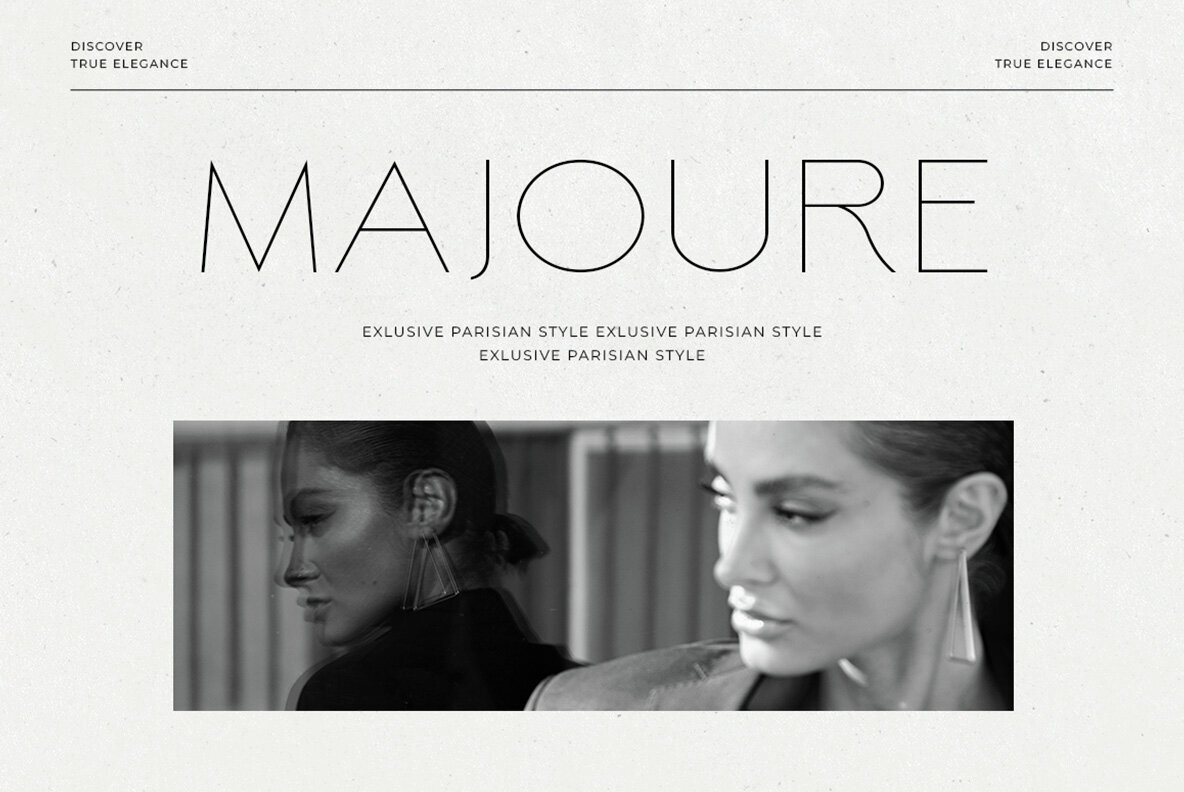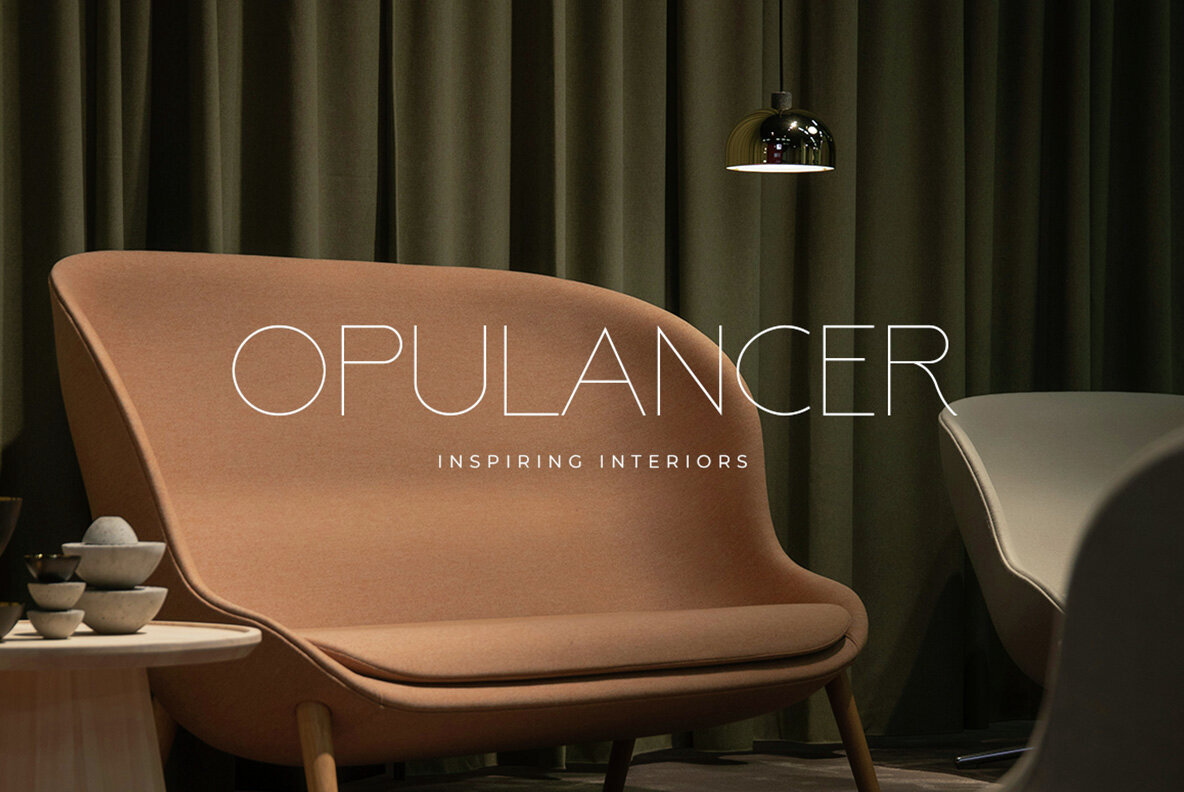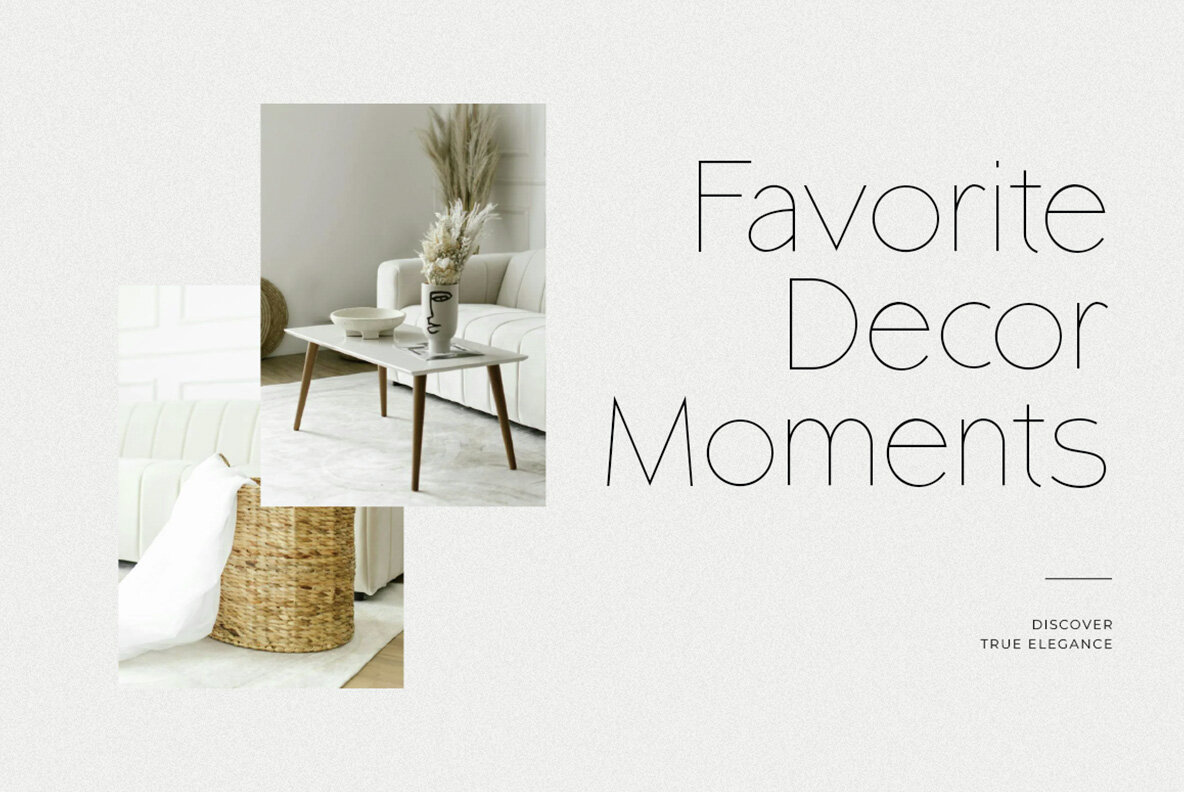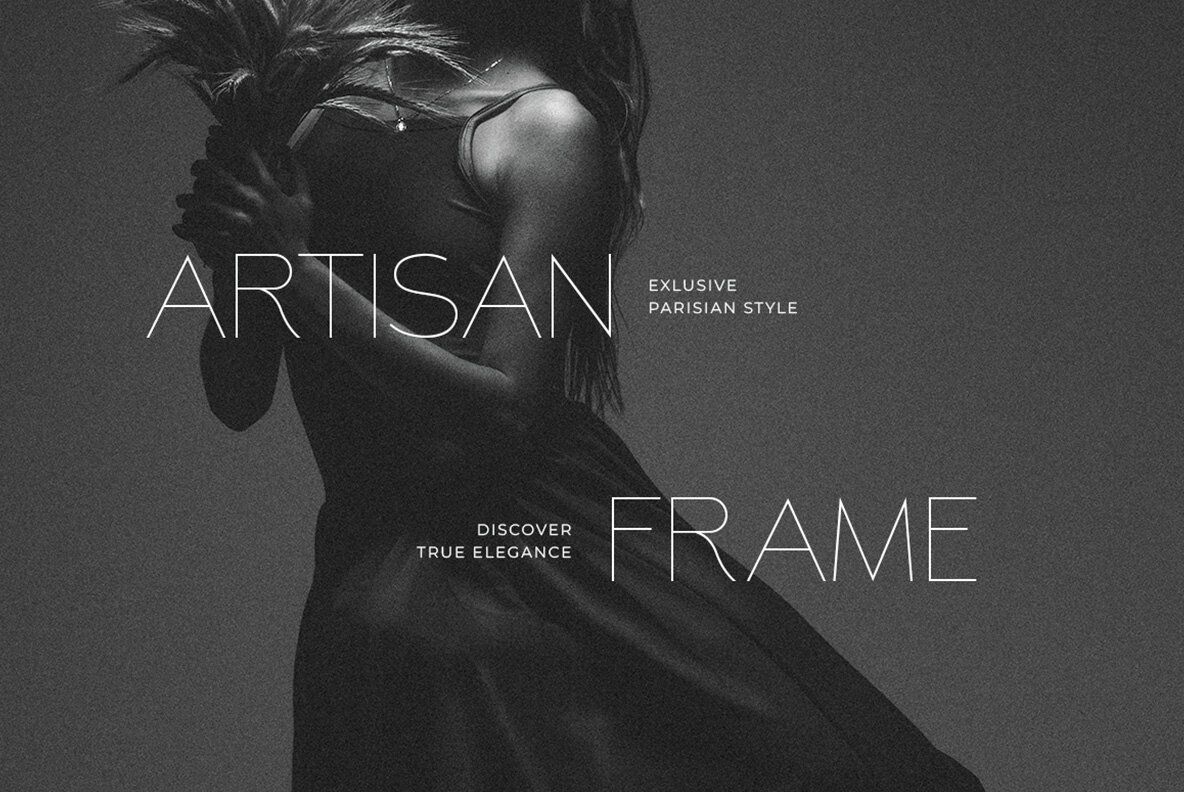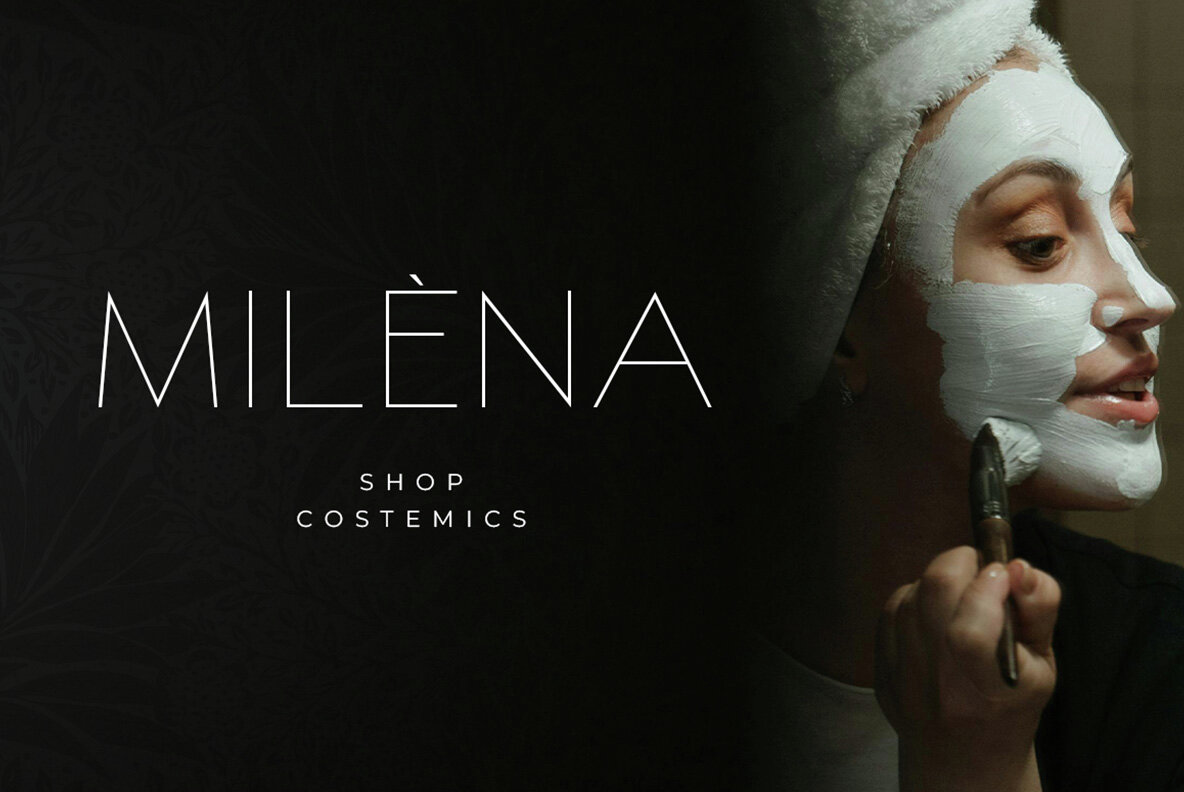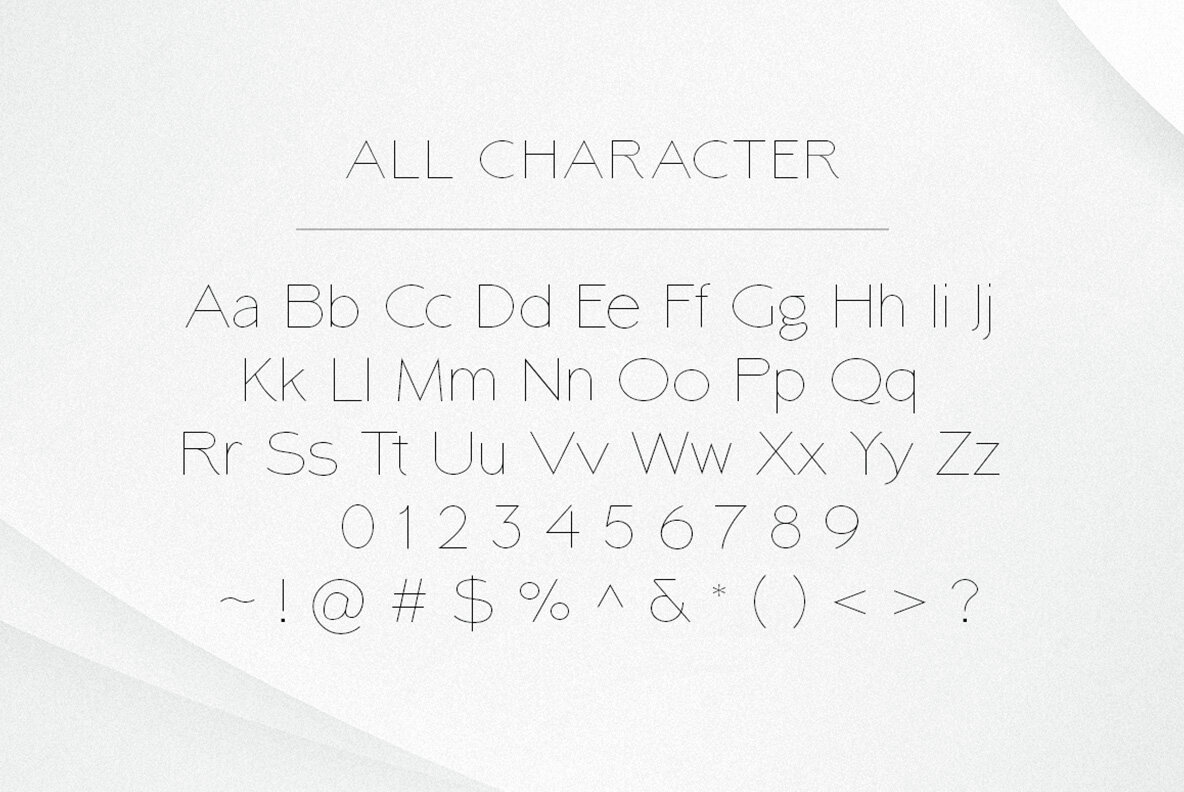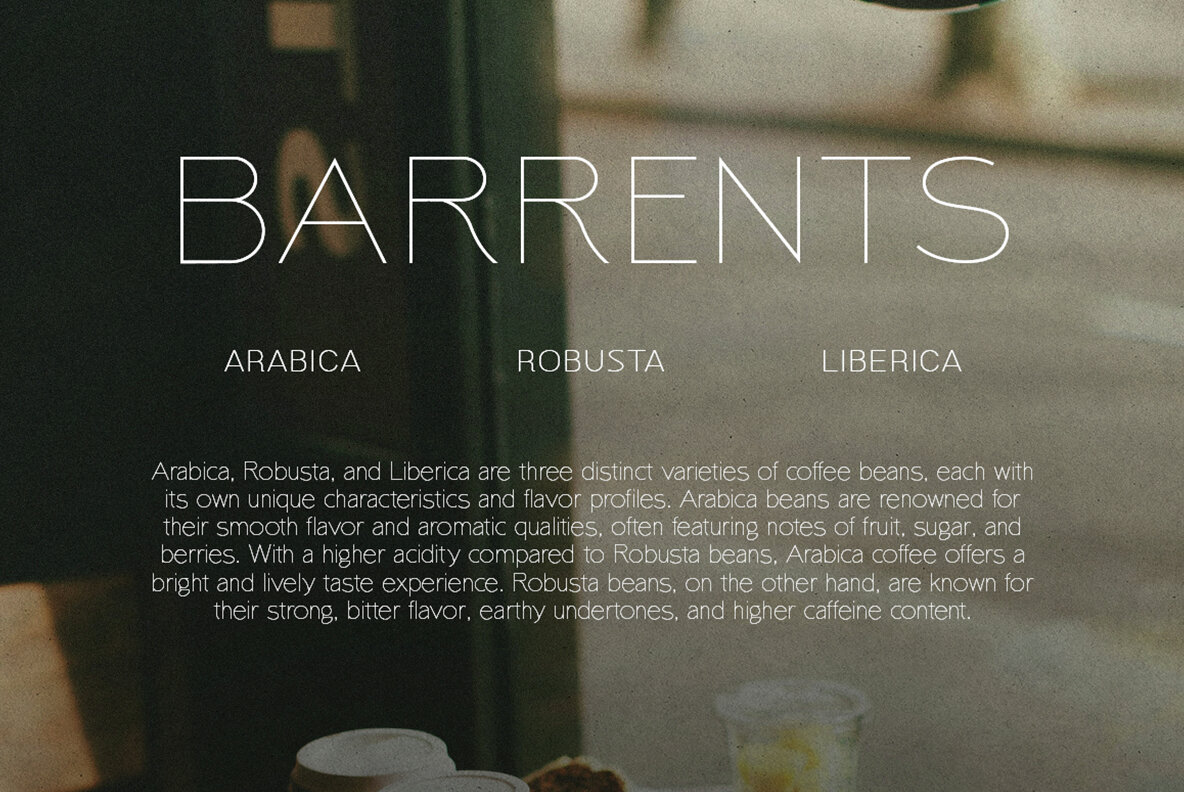
Merumatta Font
Merumatta Regular
Merumatta - A sleek and modern sans-serif font that adds an elegant touch to your designs. With its monoline style, Merumatta is perfect for branding, fashion, and minimalist design projects. Its clean lines and balanced proportions make it ideal for creating sophisticated logos, stylish headlines, and eye-catching typography. Whether you're designing a sleek fashion label or a minimalist brand identity, Merumatta will elevate your design to the next level.